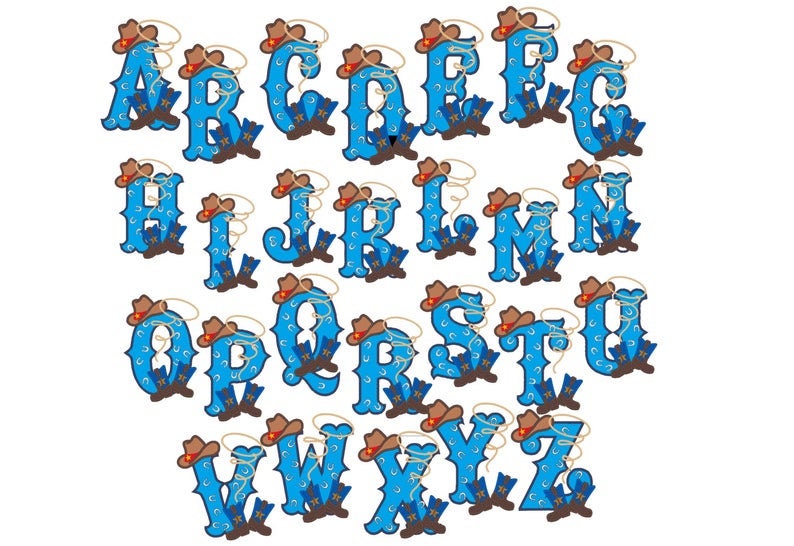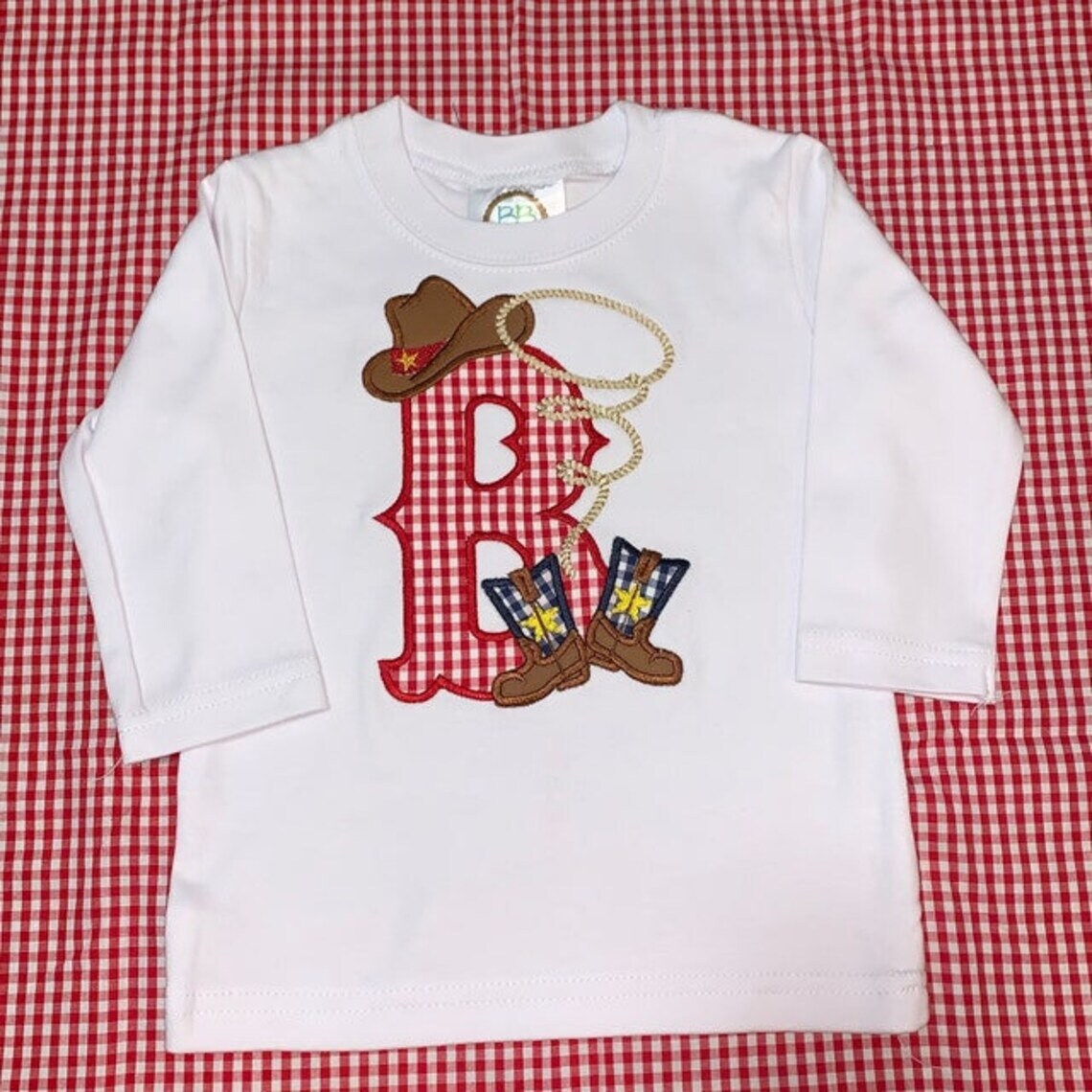
Cowboy Kicking boots and hat entire boy initial FONT monogram alphabet machine embroidery applique designs for hoop 5x7 farmer farm boy kids
All letters from A to Z
Such a cute font for the cowboy themed gift I was asked to make! Stitched out perfectly!
It fits in a 5X7 hoop, but the design must be turned 90 Degrees to fit, which means it's near impossible to use on a 2T tshirt. The design is very cute, but I'm not sure I want to go to the trouble of opening a side seam to use it. Wish it came in a size to fit upright in a 5 X 7 hoop.